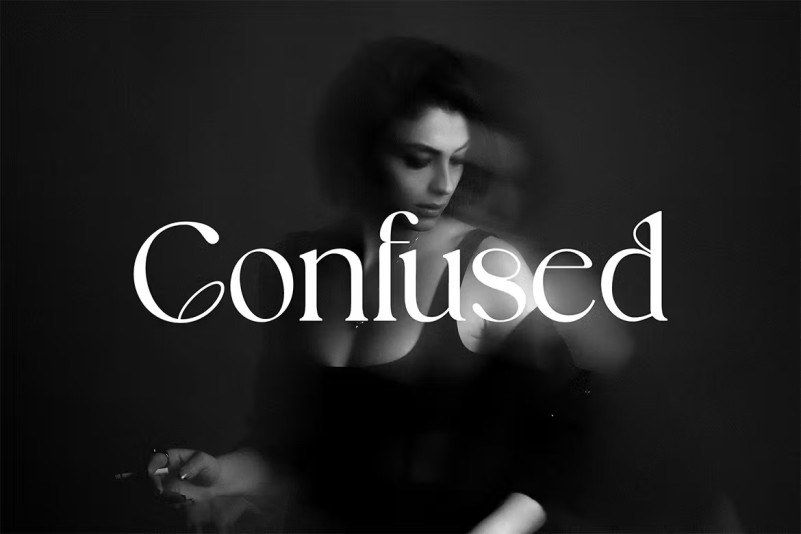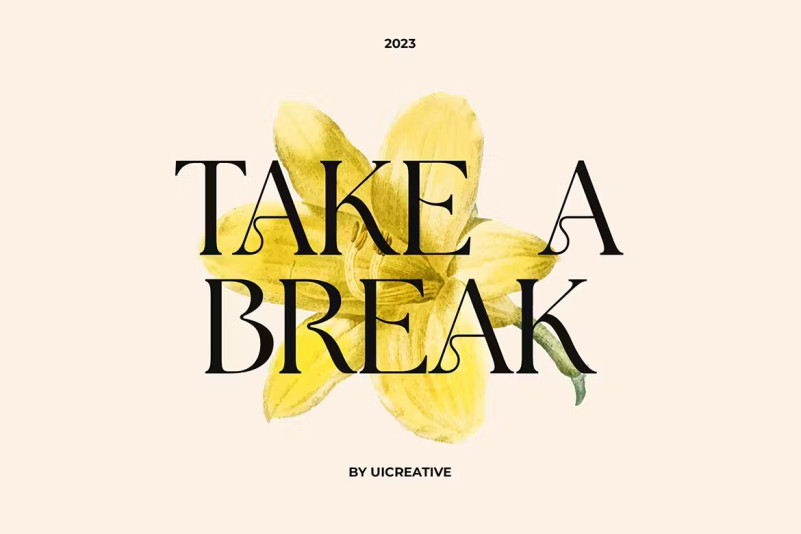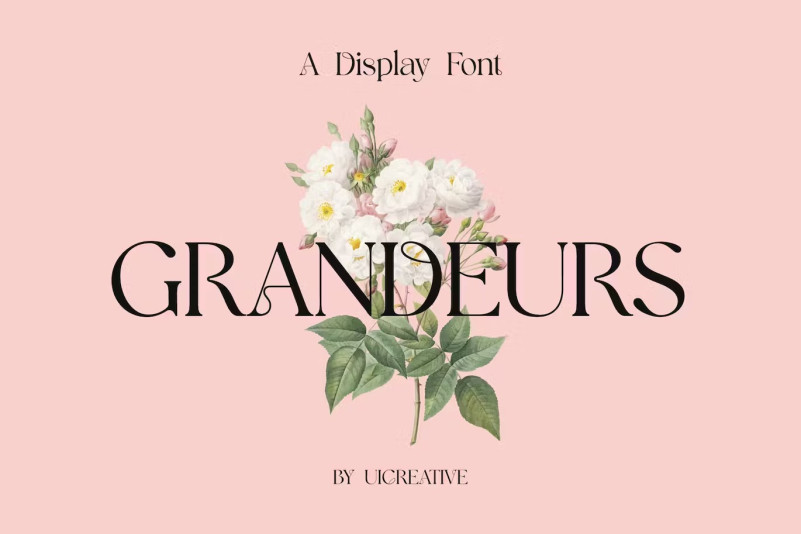
Grandeurs Font
Grandeurs Font . A modern Serif font that is beautiful, classy, ​​elegant and modern. This font is perfect for a wide variety of projects, such as signature, stationery, logo, weddings, typographic quotes, magazine or book covers, website headers, apparel, branding, packaging design, etc. Additionally, fashion-related branding or editorial design exhibits both masculine and feminine qualities.